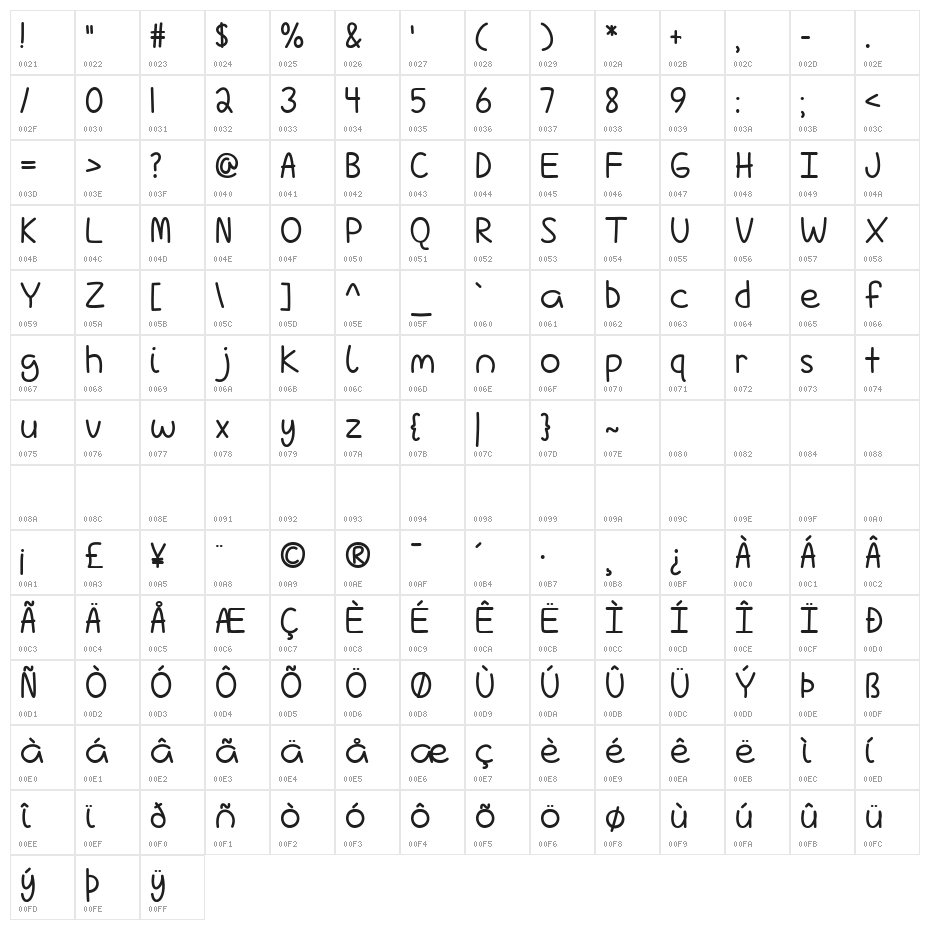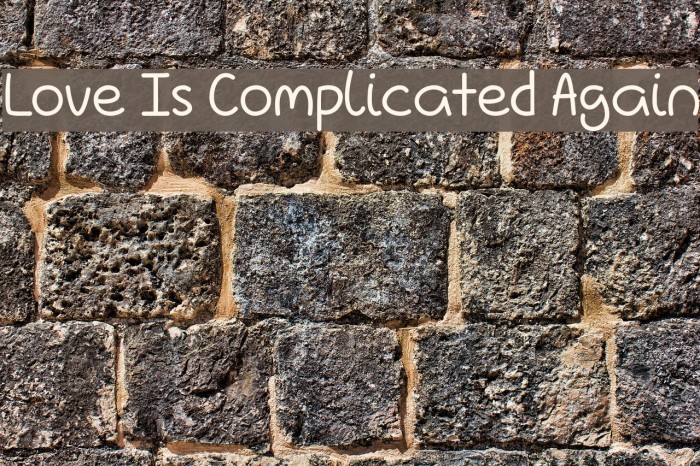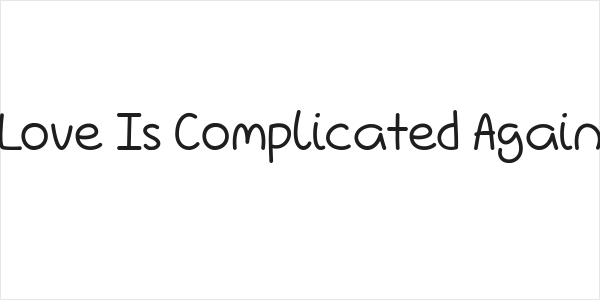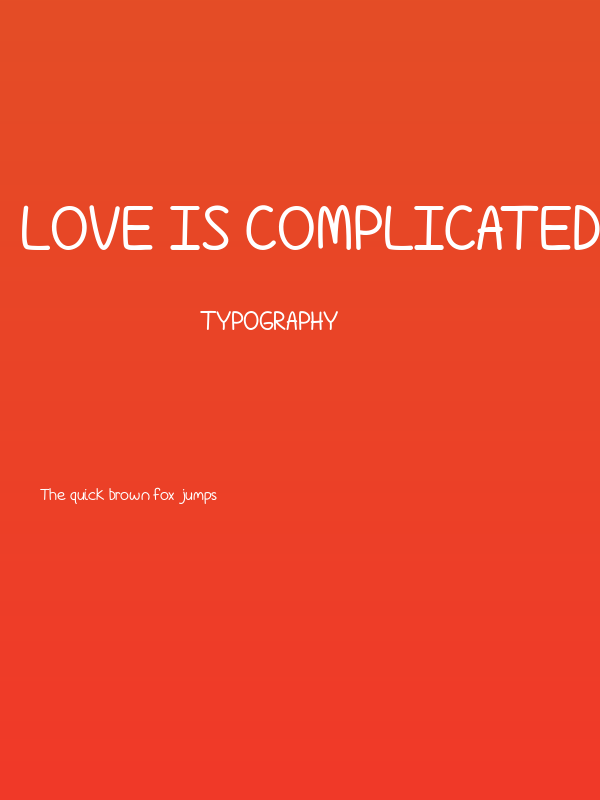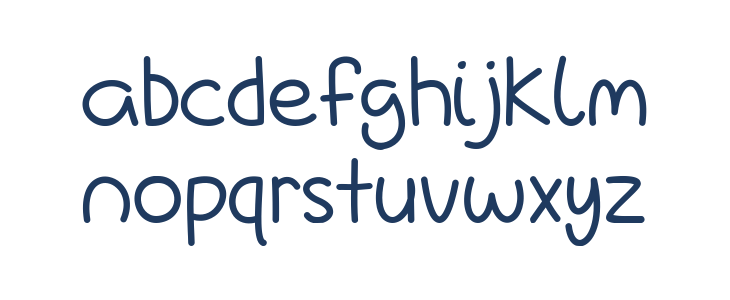
Love Is Complicated Again Font
Love Is Complicated Again Description
This font features a playful and casual style, characterized by rounded edges and a hand-drawn appearance. The letters are evenly spaced with a consistent stroke width, giving it a friendly and approachable look. The uppercase and lowercase letters maintain a uniform height, while the numerals and special characters blend seamlessly with the overall design. Its simplicity and readability make it suitable for a variety of informal applications. The font's whimsical nature is enhanced by its smooth curves and lack of sharp angles, making it ideal for projects that require a touch of personality and warmth.
| Use Case | Headlines, Informal text, Branding |
| Proposed Projects | Ideal for children's books, greeting cards, casual branding, and social media graphics. |